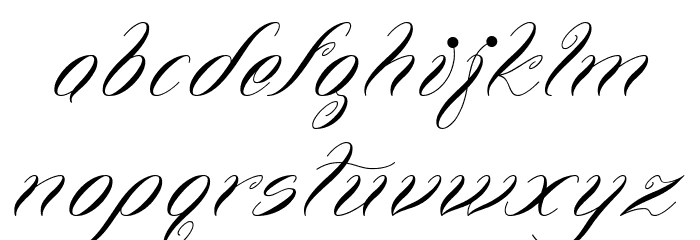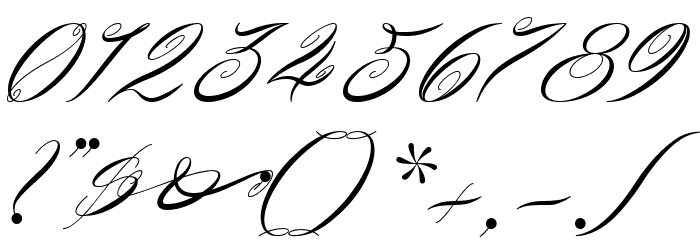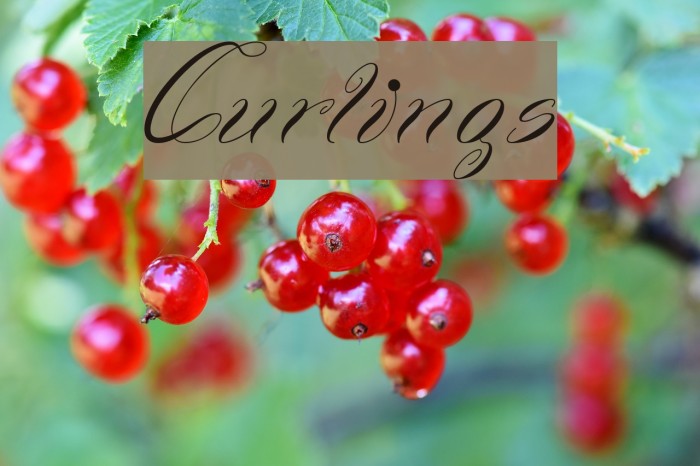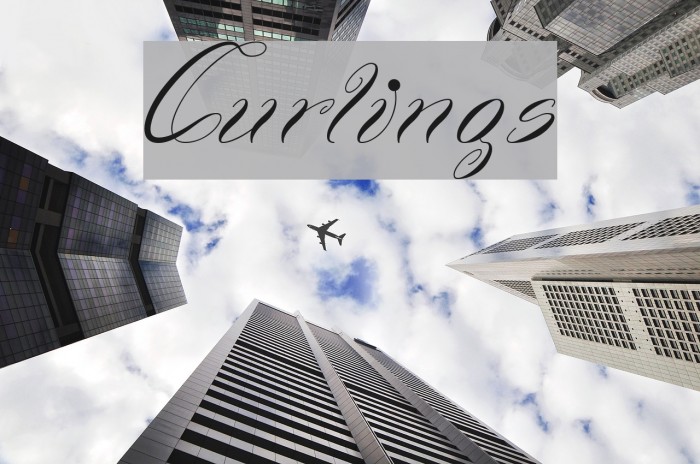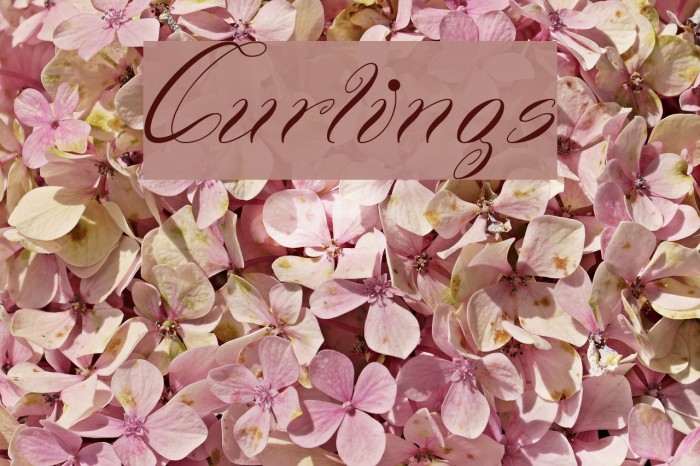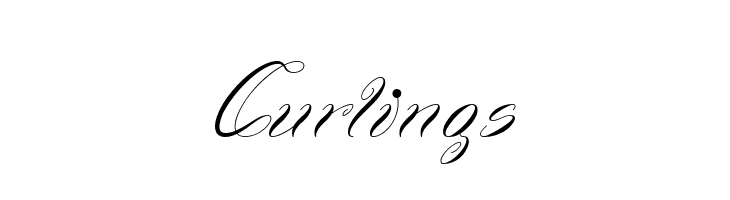
Curlings Font
This elegant script font features intricate curls and flourishes, giving it a sophisticated and ornate appearance. The uppercase letters are particularly elaborate, with sweeping lines and decorative loops that add a touch of luxury and refinement. The lowercase letters maintain a graceful flow, complementing the uppercase with their own subtle embellishments. Numbers and special characters are designed with the same attention to detail, ensuring a cohesive look across all glyphs. This font is perfect for projects that require a touch of elegance and class, such as wedding invitations, formal event programs, or high-end branding materials.
An elegant script font with intricate curls and flourishes.
- Proposed Projects: Ideal for wedding invitations, formal event programs, and luxury branding.
- Use Case: Logos, Invitations, Decorative text